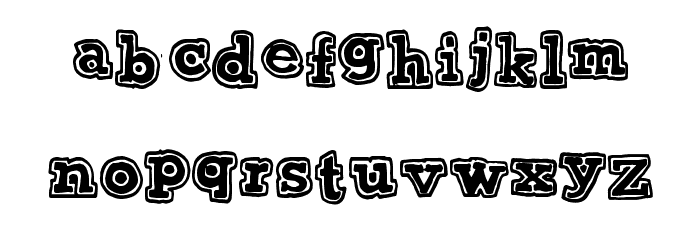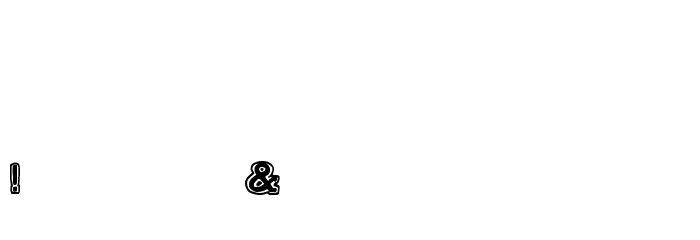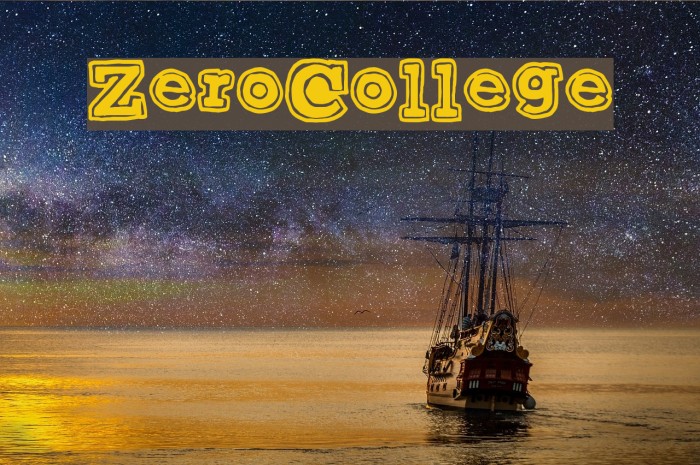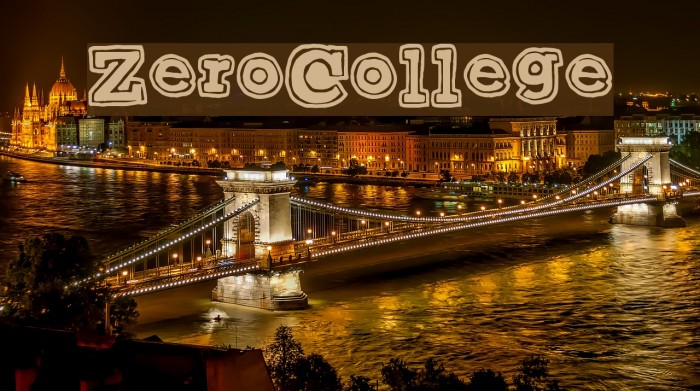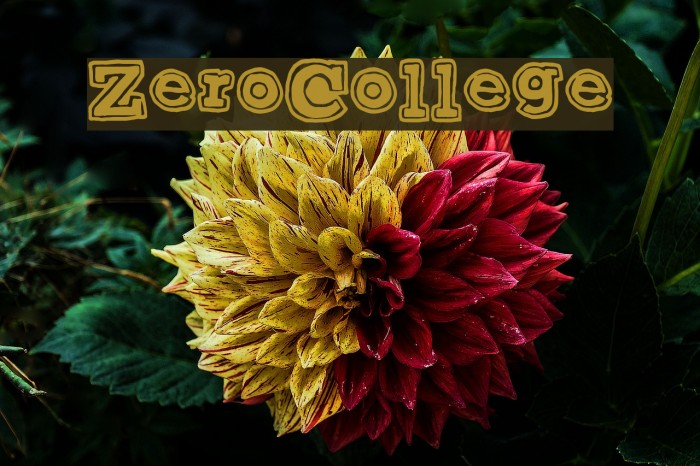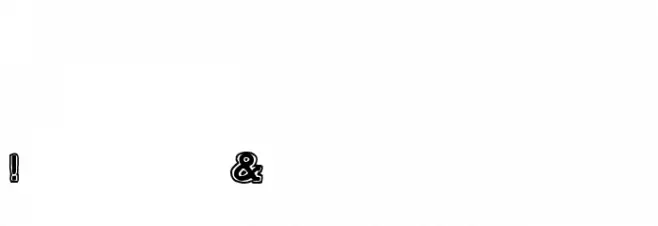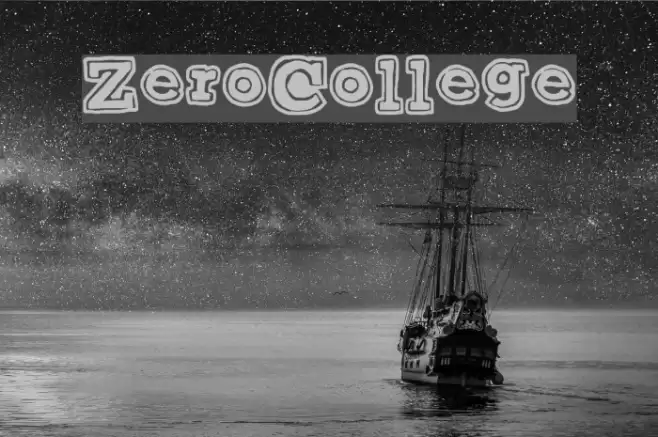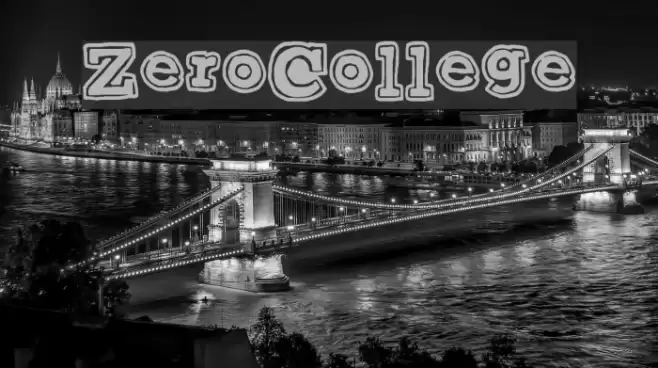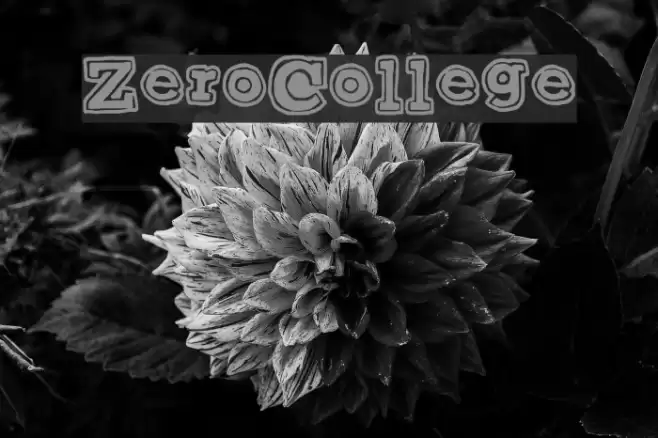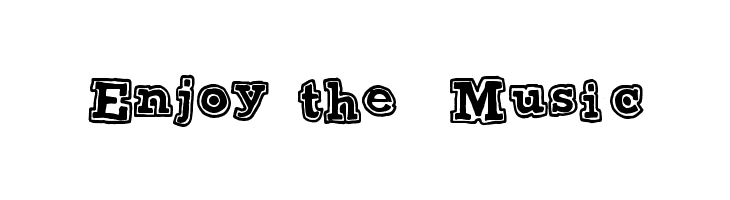
ZeroCollege Font
This font features a bold, playful design with a distinct outline that gives each character a three-dimensional appearance. The letters are uppercase and lowercase, with a consistent thickness that adds to the boldness of the style. The font has a decorative flair, making it ideal for eye-catching designs. The characters are well-spaced, ensuring readability while maintaining a fun and engaging aesthetic. The special characters, such as the ampersand and exclamation mark, are designed with the same playful outline, ensuring consistency throughout the font.
A bold, playful font with a three-dimensional outline, perfect for decorative uses.
- Proposed Projects: Ideal for children's book covers, playful posters, and creative branding projects.
- Overall Style: Playful, Decorative